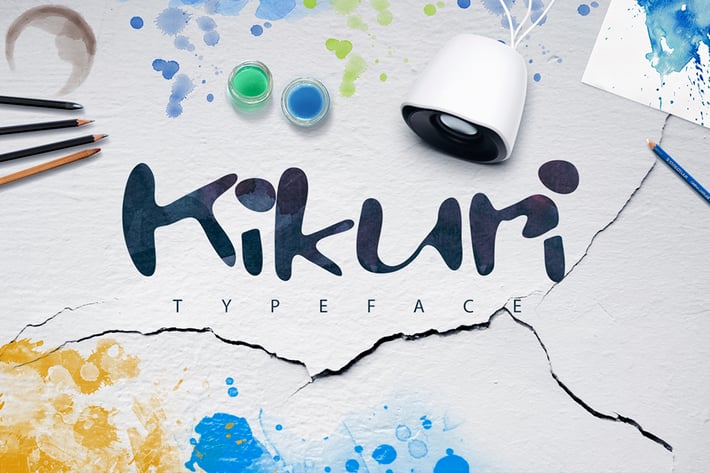
Kikuri Typeface + Extras
This playful font has very smooth rounded letters and really stands out because of itβs asymmetrical letters.
The Kikuri font is a great font for when you are creating unique design that needs to feel different.
All letters. All numbers.